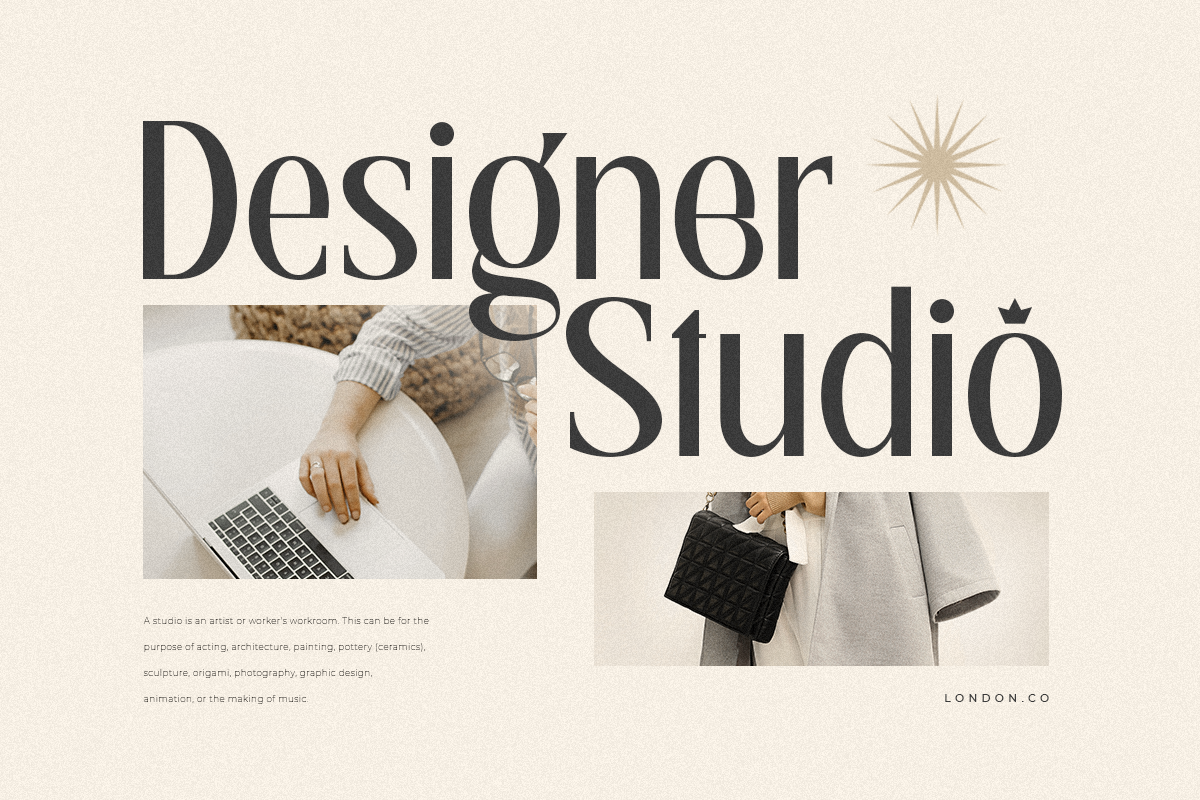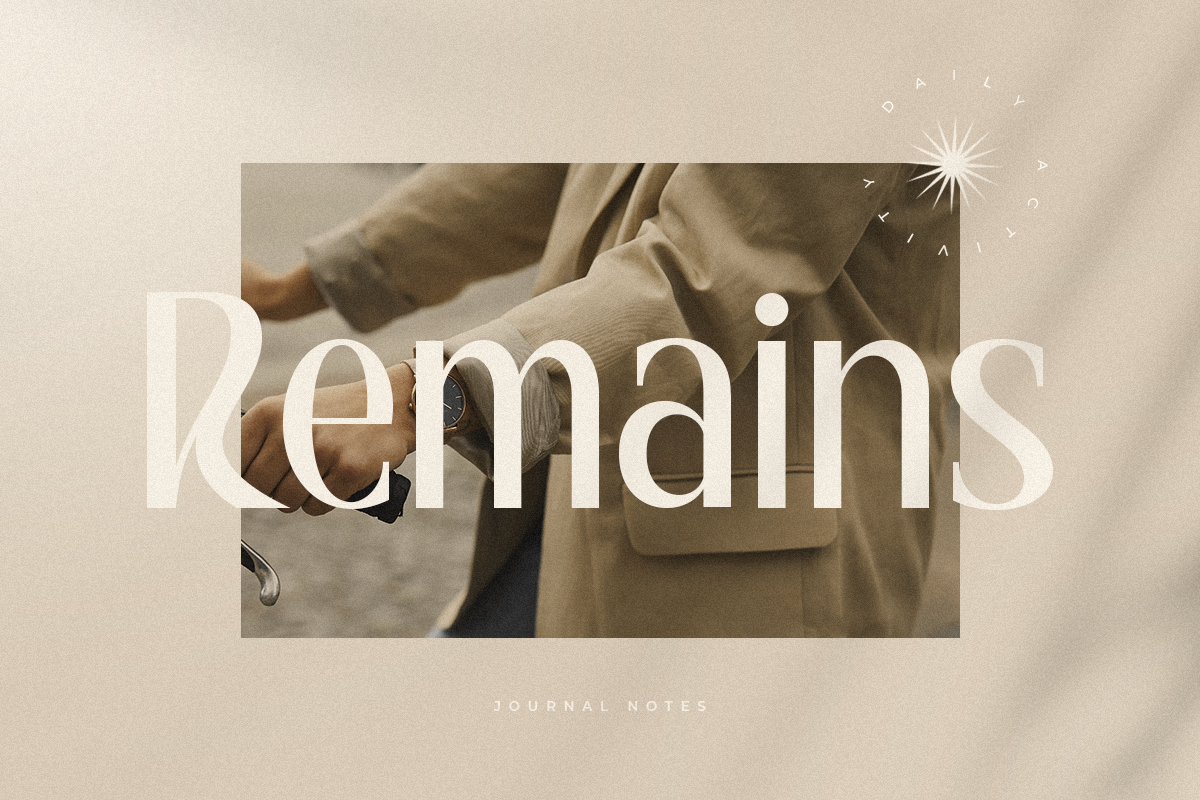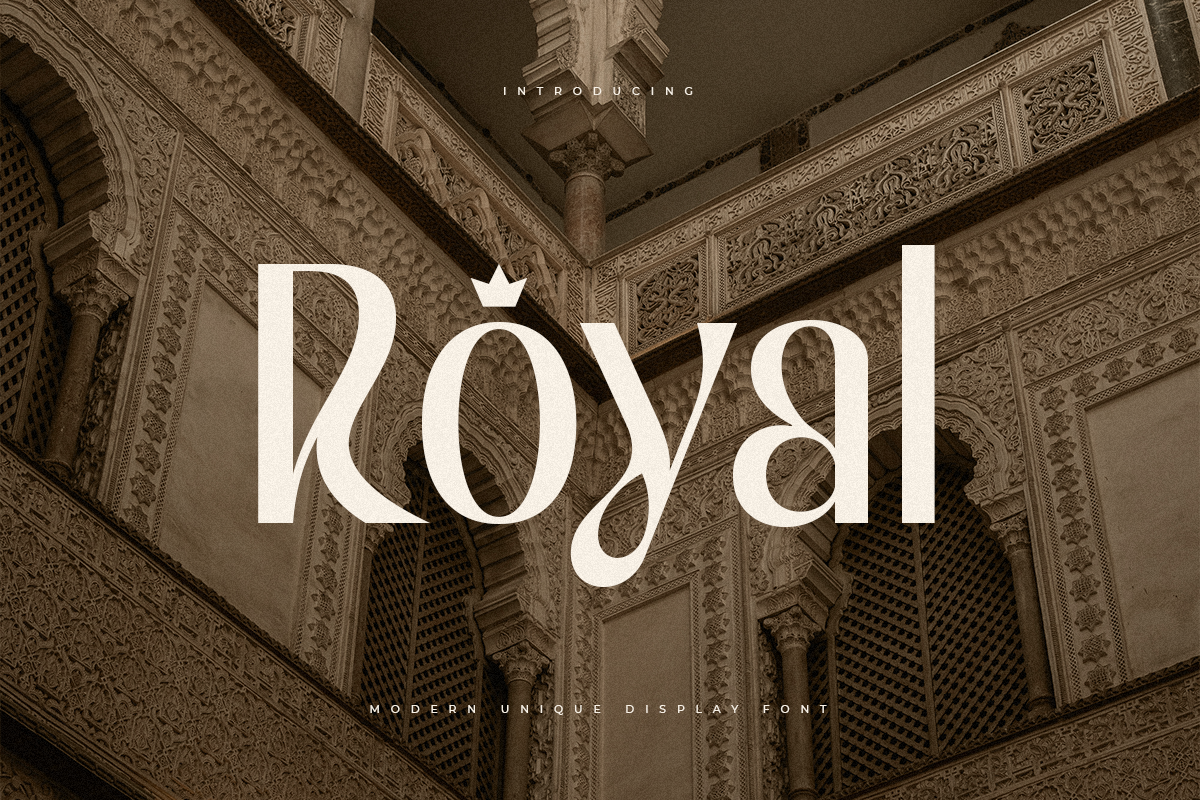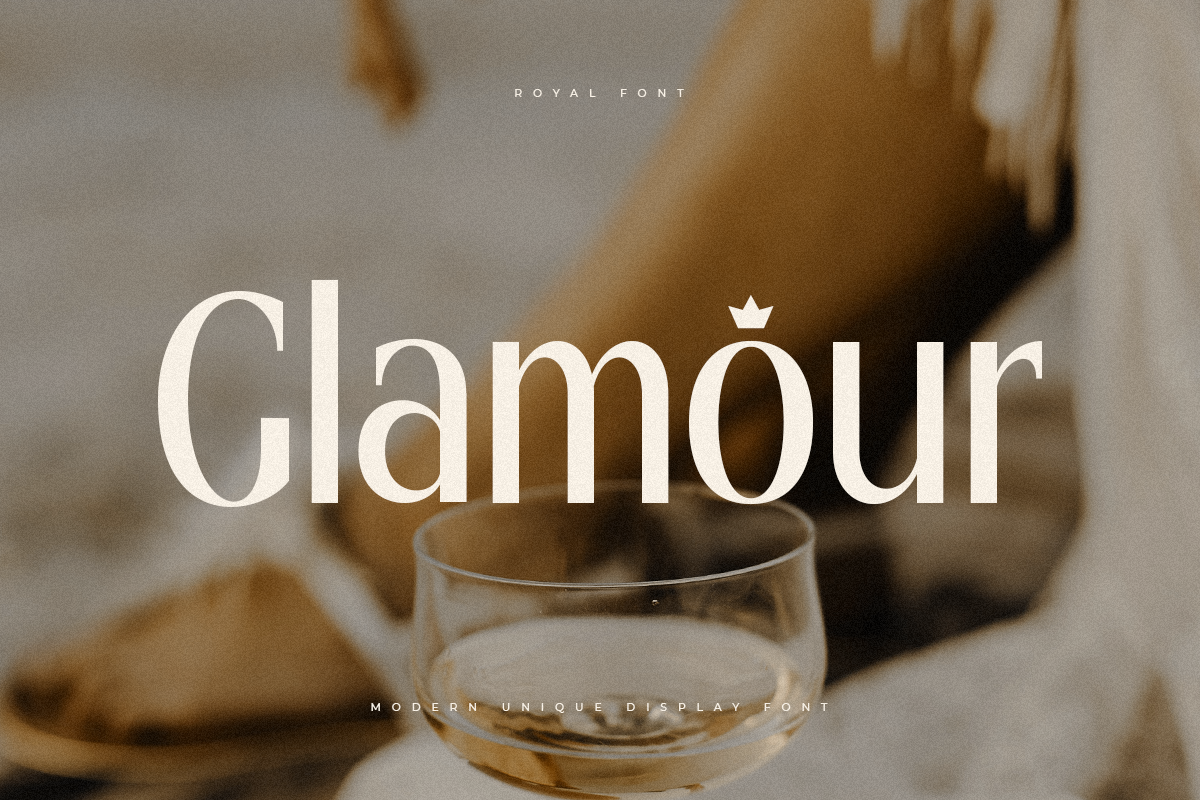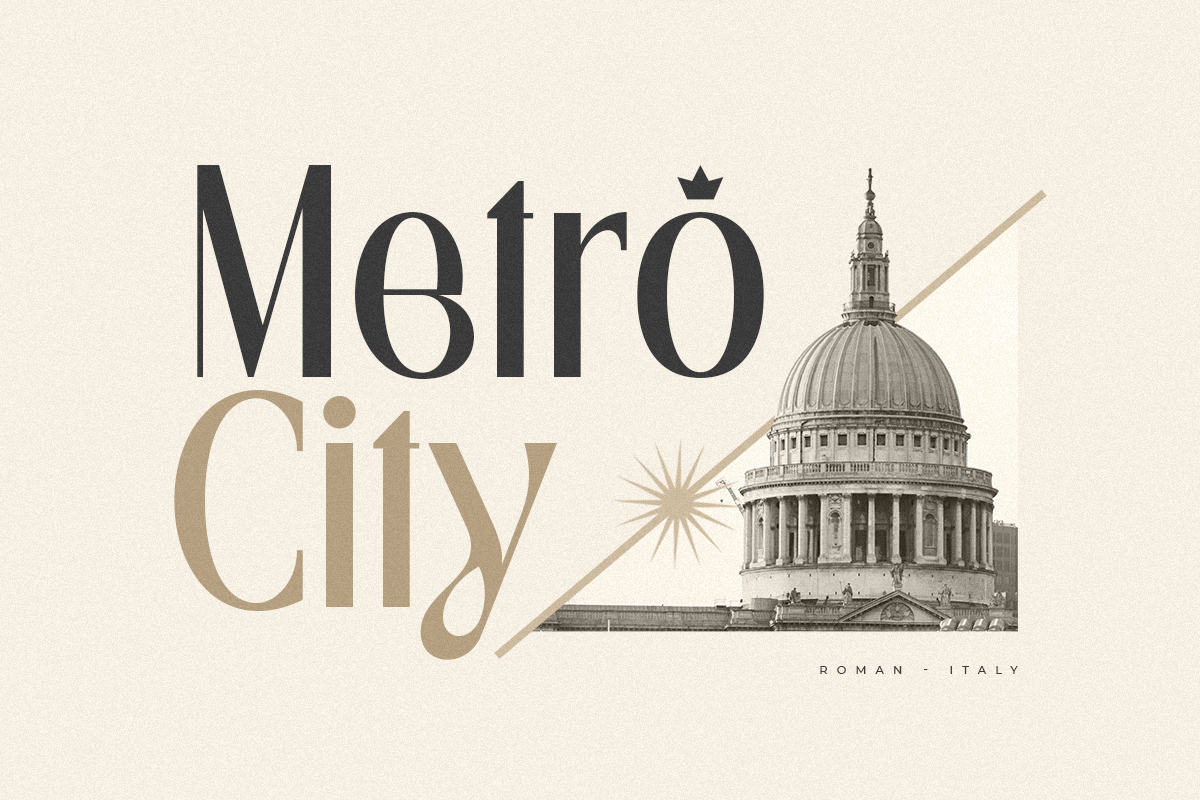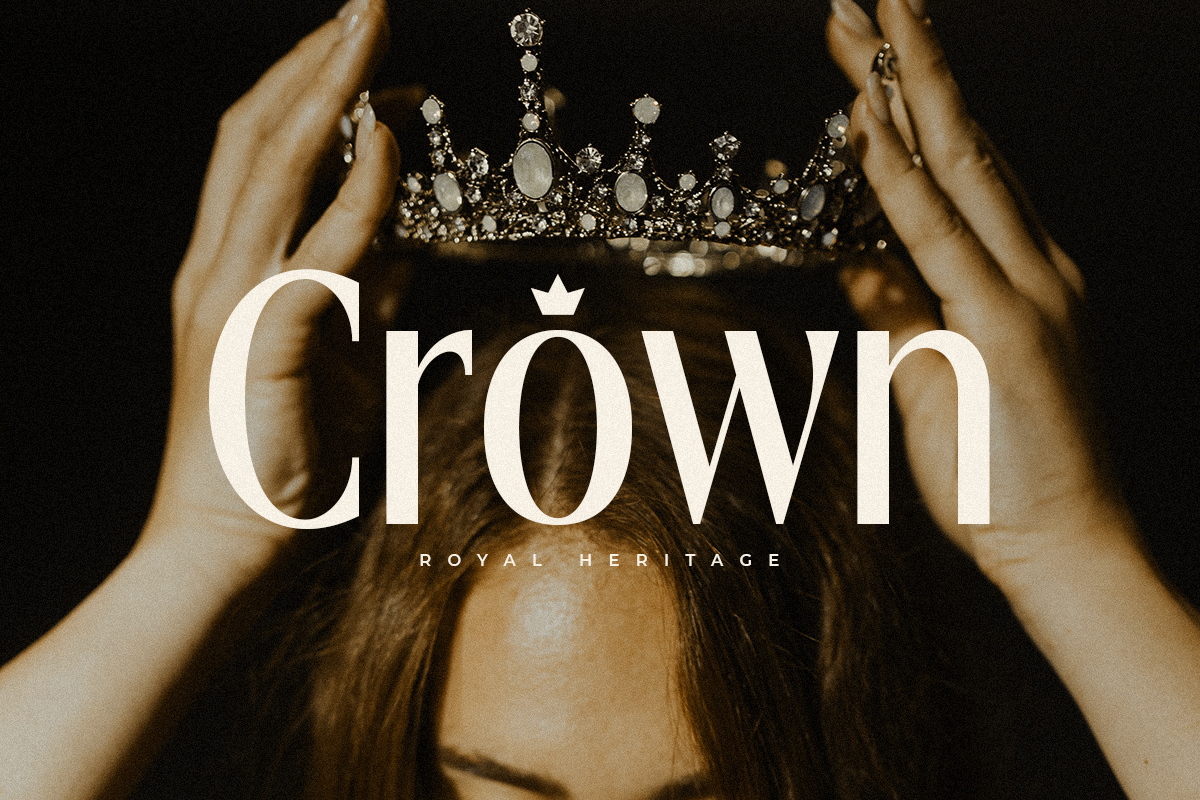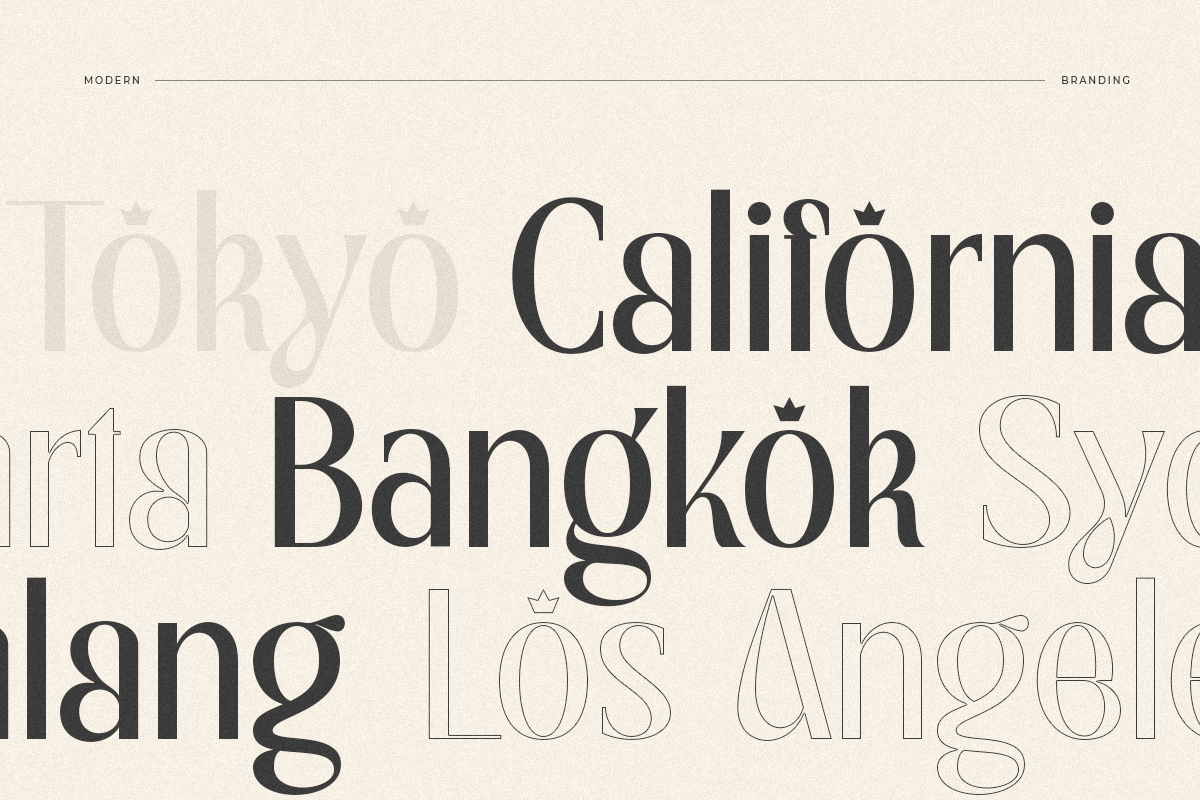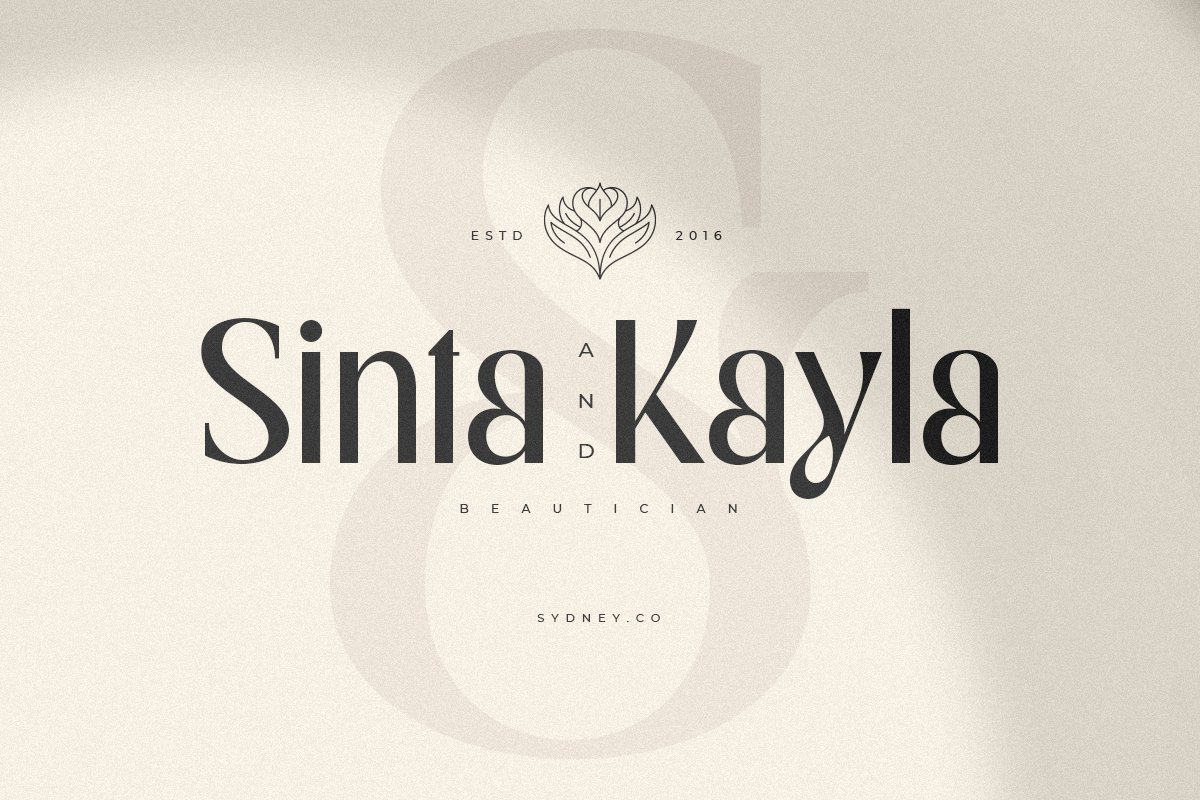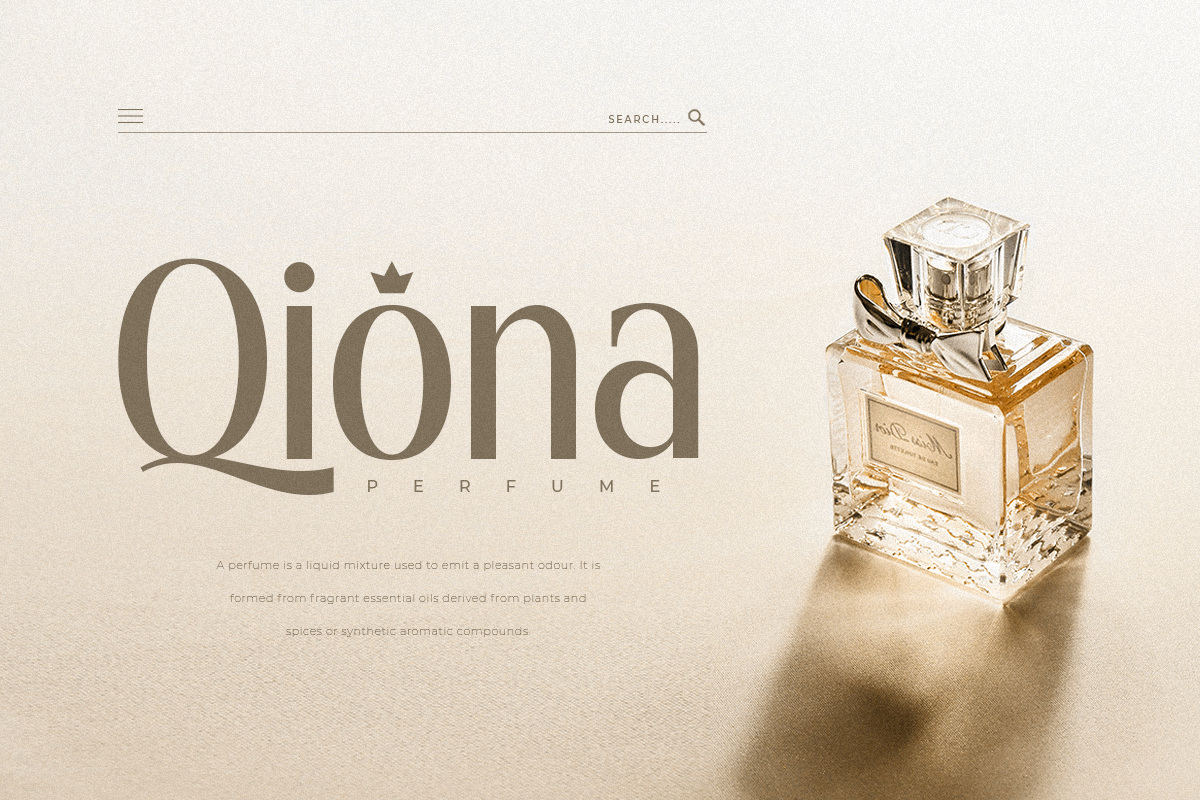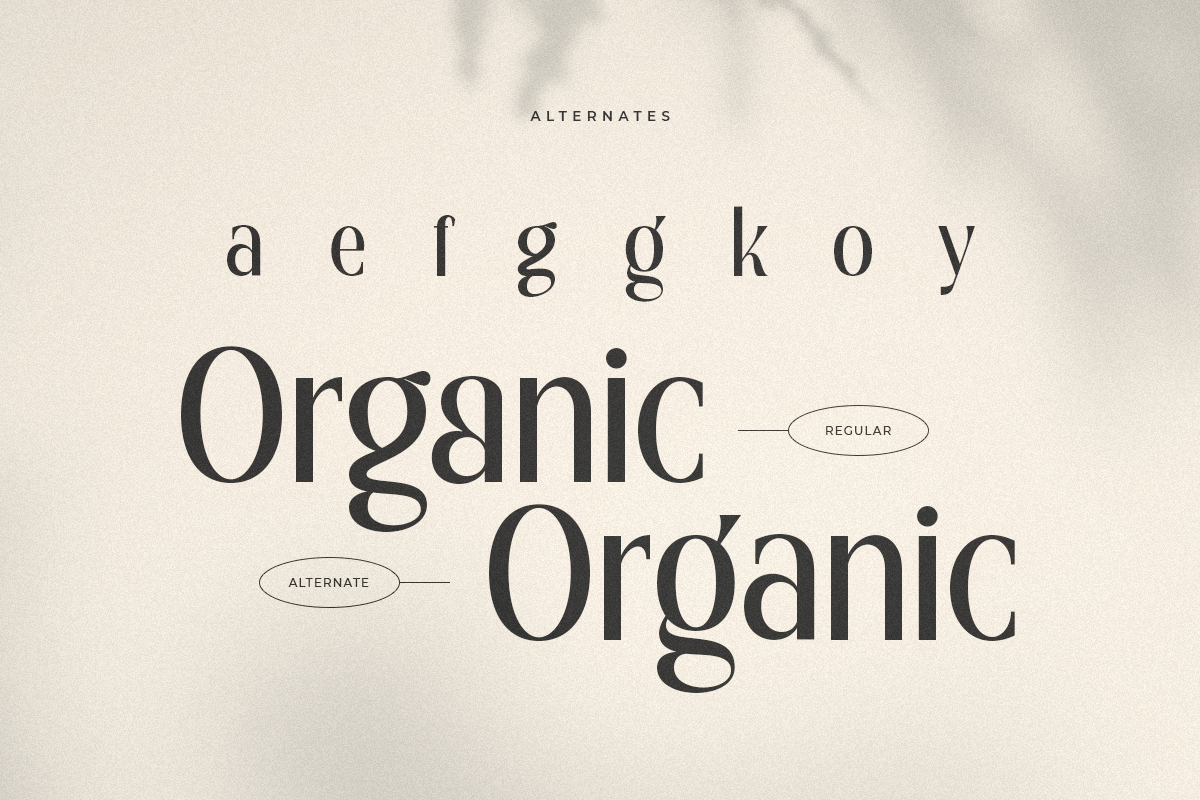
Royal - Modern Unique Display Font
Royal is a Modern Unique Dislpay Serif font for branding and logo design.
Introducing our exquisite font, meticulously crafted for branding and logo design. Developed by our team of seasoned graphic designers, this font embodies the perfect fusion of uniqueness and elegance.
Drawing upon our extensive experience working with numerous companies, we understand the constant demand for distinct logo designs that exude sophistication. To meet this need, we embarked on a creative journey, engaging in brainstorming sessions to conceive a font that would bring these ideas to life.
With this font, you can expect nothing short of exceptional results. It encapsulates classiness, emanating an air of refined aesthetics that will set your brand apart. Each logo created using this font will be a testament to its uniqueness, ensuring that your brand identity stands out from the crowd.
Our font serves as the ultimate tool for branding and logo design, enabling you to infuse elegance into every aspect of your visual representation. Whether you are an established business seeking to revamp your image or a budding entrepreneur looking to make a memorable first impression, this font is your go-to solution.
Unlock the power of elegance and sophistication with our font, and witness the transformation of your branding and logo design endeavors. Experience the fusion of artistry and functionality, as this font breathes life into your ideas, elevating them to new heights of visual appeal.
Royal is also included full set of:
- multilingual characters
- numerals
- punctuation
- ligatures collection